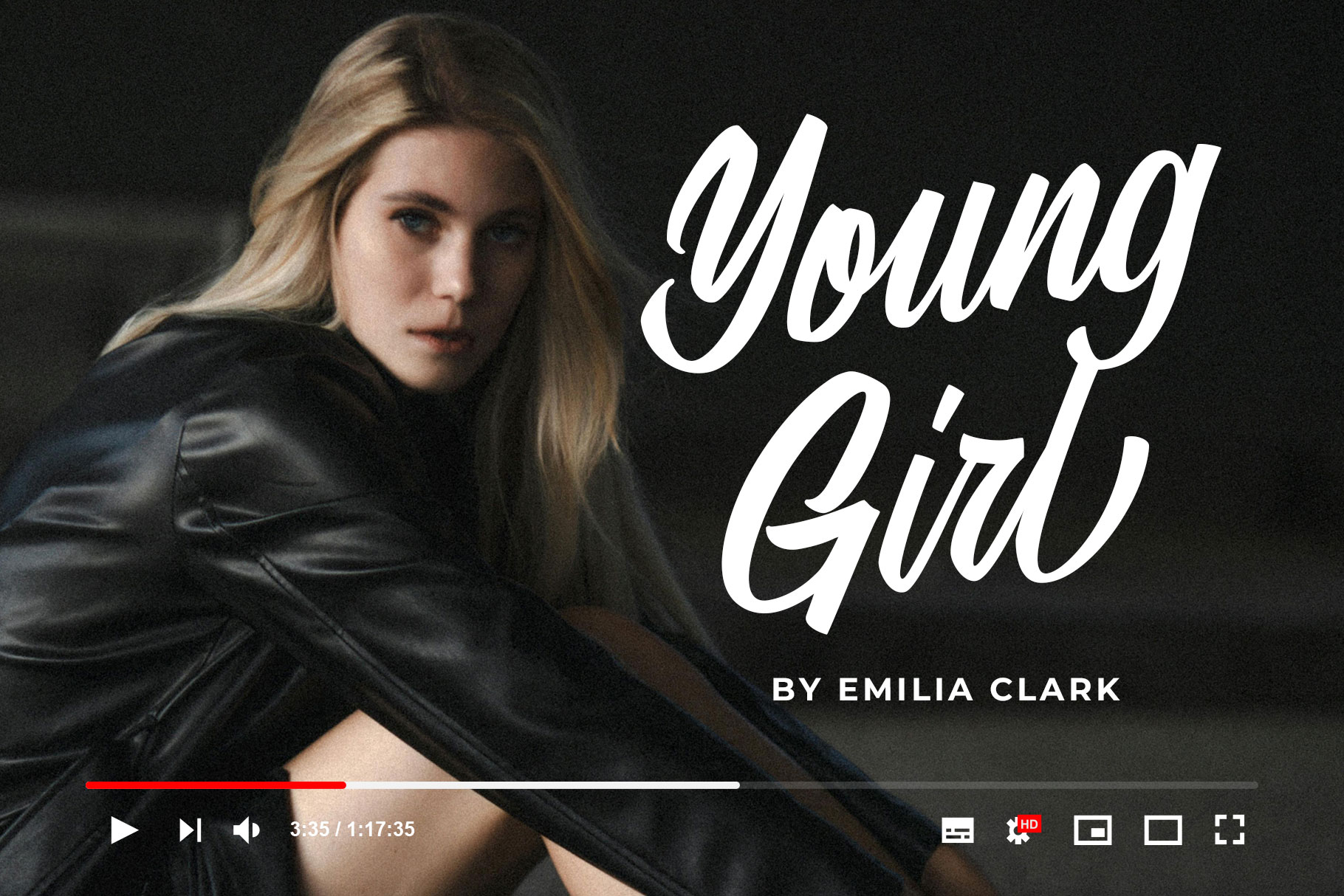
Crestaly Modern Script Font
Crestaly is modern handwritten font made by rantautype studio. Crestaly come with stylish shape to create professional brand. Crestaly is a perfectly choice for any creative endeavor, creating, modern, chic, lifestyle design such as logotype, title, cover, branding, invitations, wedding designs, display and magazine, social media posts, advertisements, printed quotes, product packaging, corporate brand, product designs, labels, photography, watermarks, special events and any other project with modern touch.